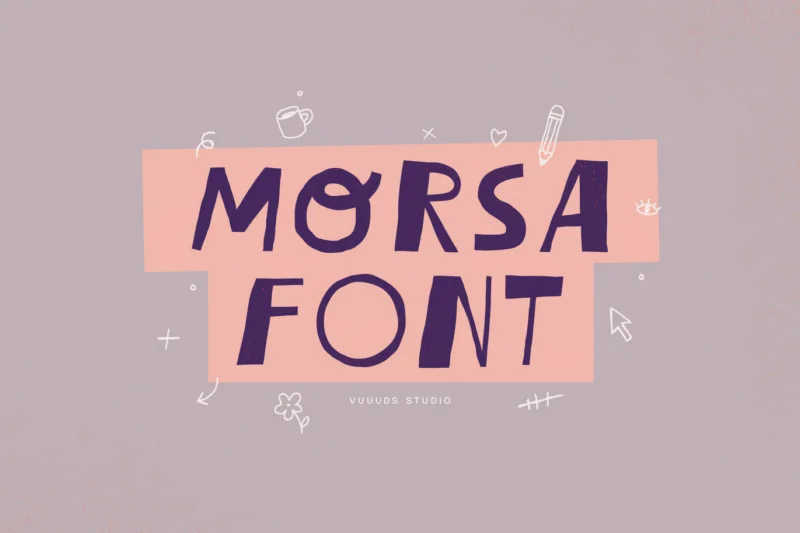
Morsa
Introducing Morsa Font!
This unique, rough-style display font is designed to be random, bold, and fun, immediately giving your project a handcrafted, energetic feel. Its uneven baseline and textured edges make it perfectly suited for branding, logo design, posters, and merchandise where standing out with a quirky and distinctive look is essential.